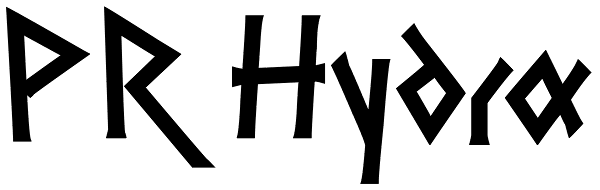
PR Hydra
A sequel to my own Herakles font, with multiple faces, and more to come, so the name refers to his second labor, slaying the Hydra. The straight lines and sharp angles make it suitable for evoking the feel of many ancient civilizations where writing...
PR Hydra Small Caps
PR Hydra